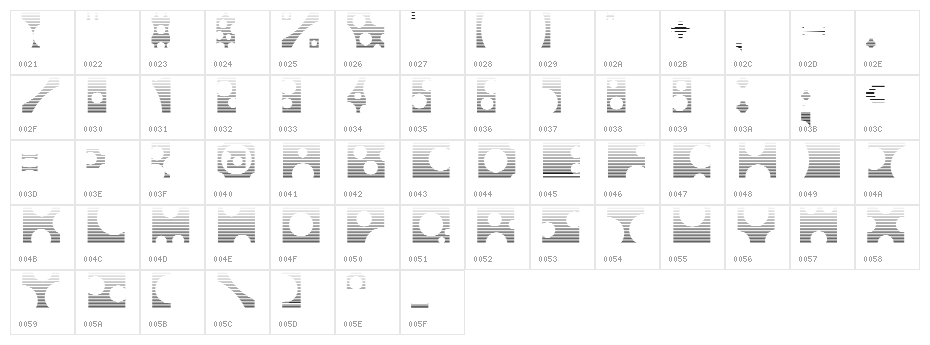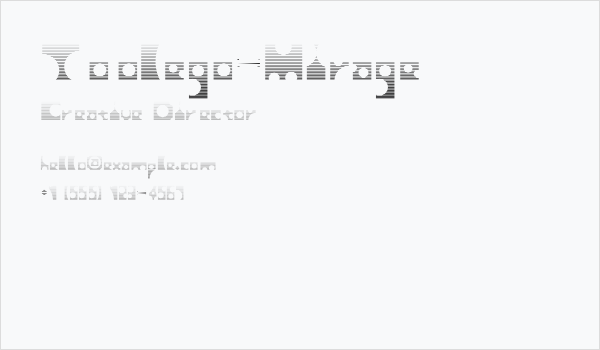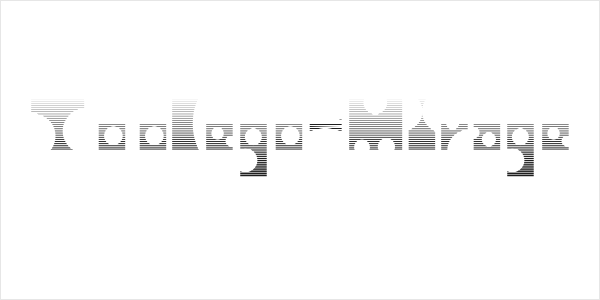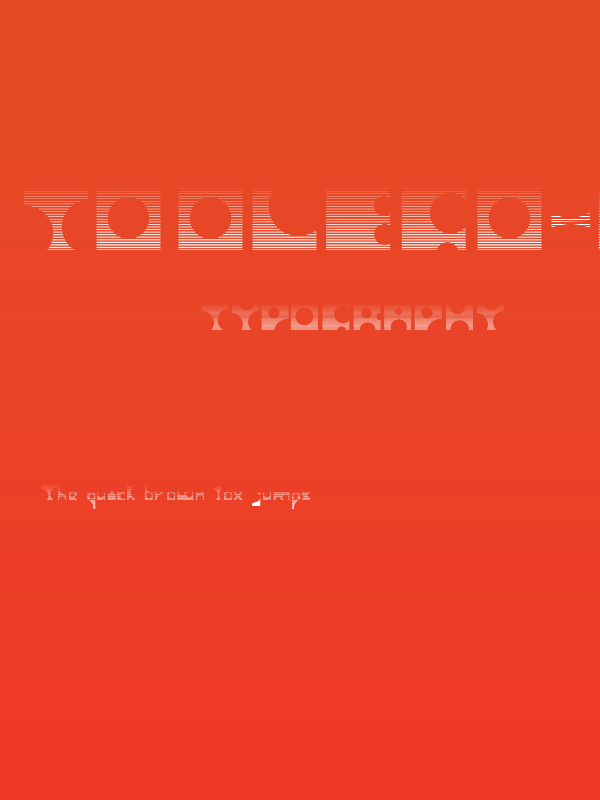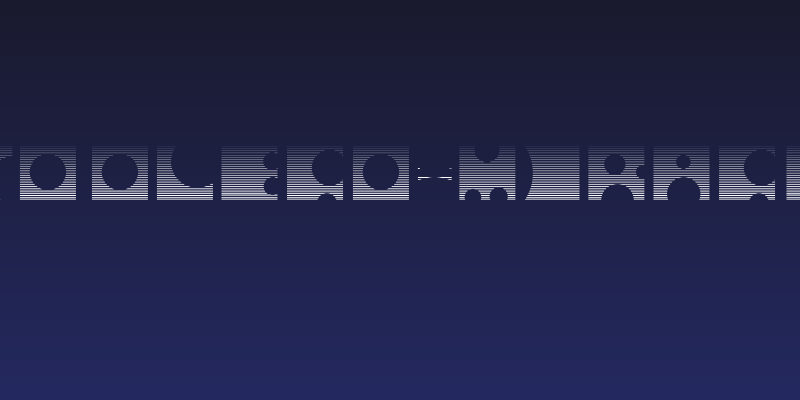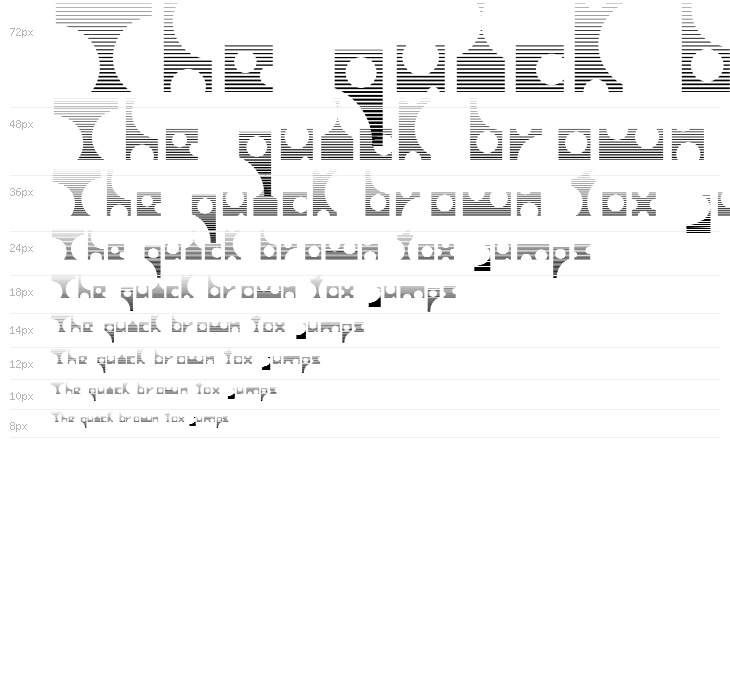
Toolego-Mirage Font
Toolego-Mirage Description
This font features a unique, striped pattern that gives it a modern and dynamic appearance. The characters are composed of horizontal lines, creating a sense of movement and energy. The uppercase and lowercase letters maintain a consistent style, with rounded edges and a geometric structure. The numbers and special characters follow the same design principles, ensuring a cohesive look across all elements. This font's distinctive style makes it stand out, offering a fresh take on traditional typography.
| Proposed Projects | Ideal for branding projects, modern art posters, digital media, and innovative advertising campaigns. |